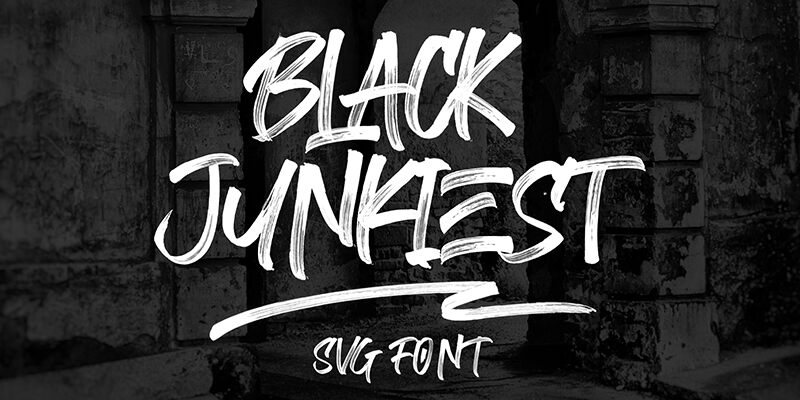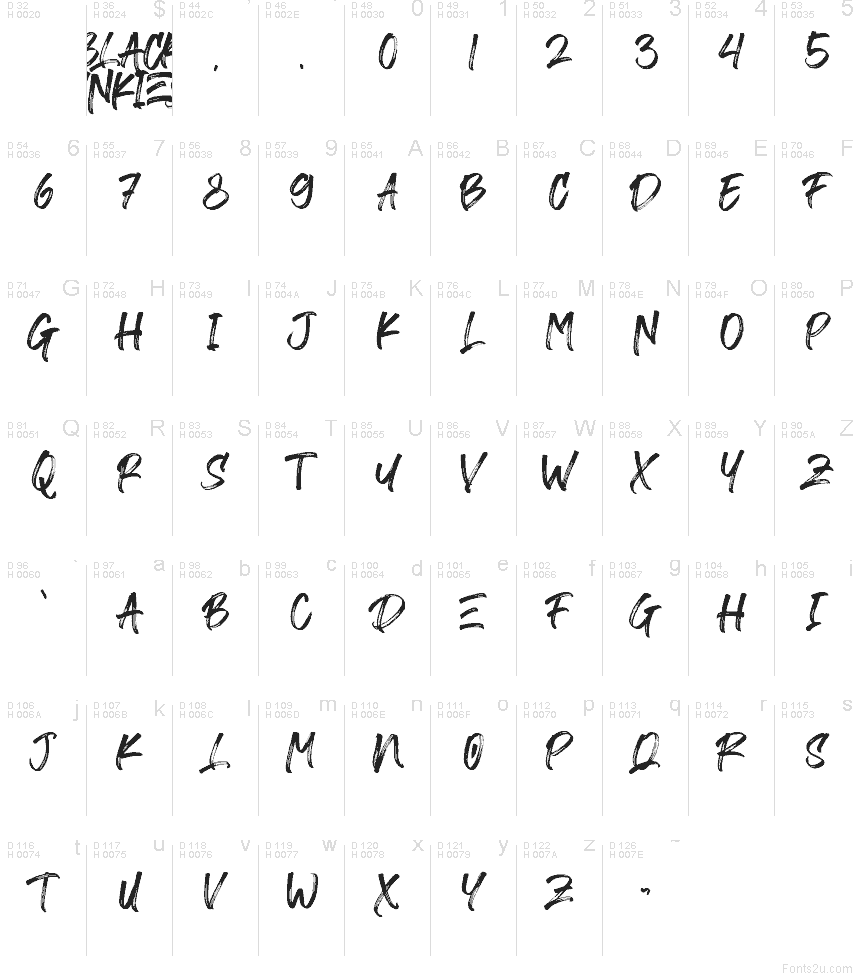
Black Junkiest
Black Junkiest by Aminmario and Ibrahima Studio is a free dry-brush handwritten font with a loud, fast-painted attitude. The letters feel slashed on with a loaded brush, mixing thick strokes, frayed edges, and scratchy streaks that keep the whole set raw rather than neat.
That rough energy fits poster headlines, music artwork, streetwear graphics, packaging, and title cards where the lettering needs to feel physical and unpolished. As a free font, it also makes sense for cover lines or short branding moments, especially when you want the text to look like it was brushed in one impatient pass.